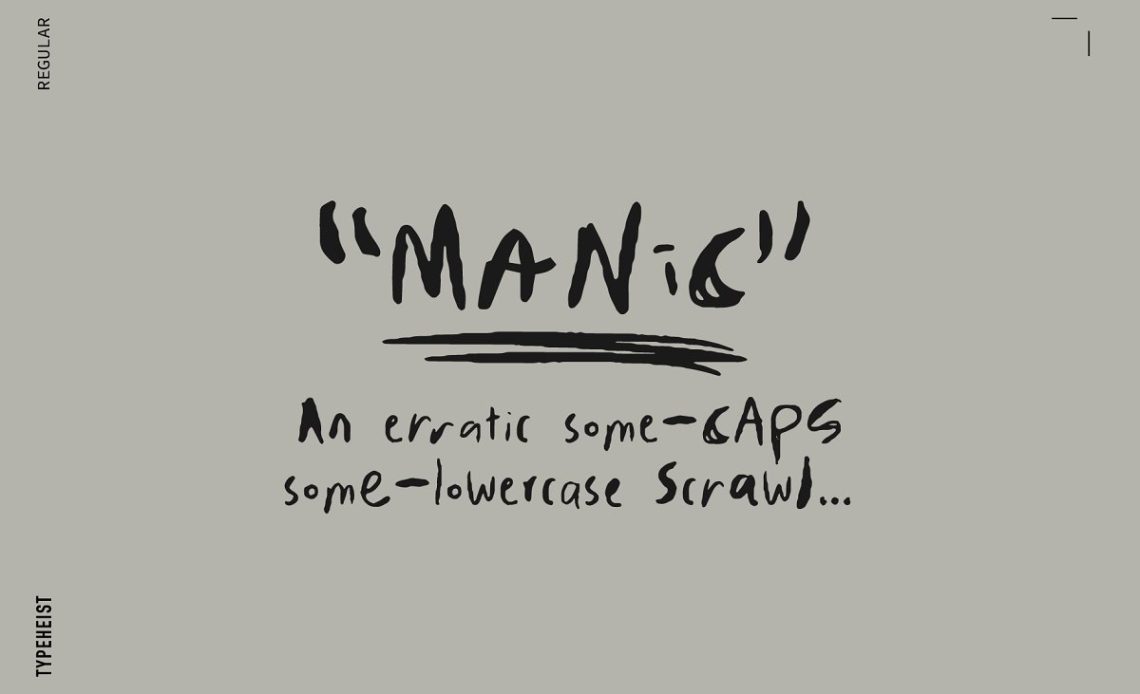
Introducing MANIC Erratic Handwritten Font, the perfect font for all your manic typography needs! Created by Laura Eddy, this sans serif font family is an erratic some-caps some-lowercase scrawl, aka handwriting font, that is messy, realistic and hand-drawn.
This font is not just your ordinary handwriting font, but one that has been transformed into a font that is both versatile and unique. With three alternate font styles, there are a total of four variations for each A-Z letter and number, producing a slightly different (but always manic) overall look.
But that's not all! MANIC contains 100+ ligatures including double letter combos for both uppercase and lowercase characters, giving you the freedom to make your creations as wild and unique as you need. And with MANIC Regular (including all alternative glyphs), MANIC Alternates 1, MANIC Alternates 2, and MANIC Alternates 3, MANIC Sketches, and embellishments in SVG/PNG file formats, you can be sure that you'll have all the tools you need to make your designs stand out.
With standard English characters and non-English accented characters, MANIC is perfect for a wide range of creative projects. Whether you're looking to create eye-catching graphics, unique posters, or personalized invitations, MANIC is the font for you.